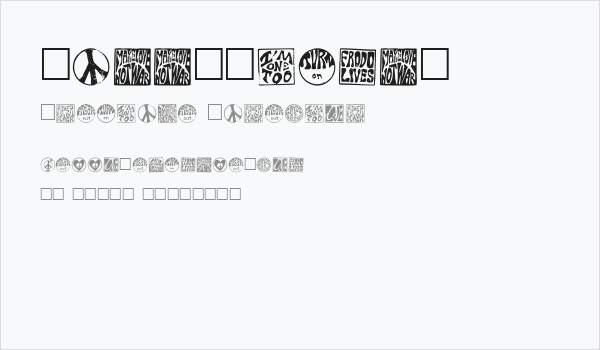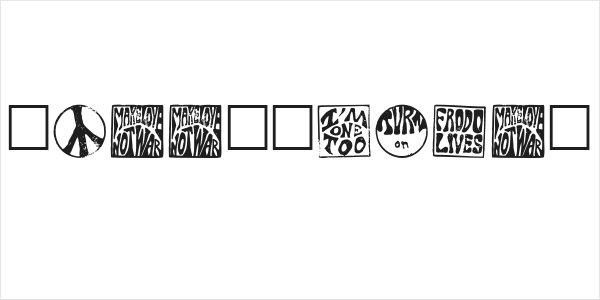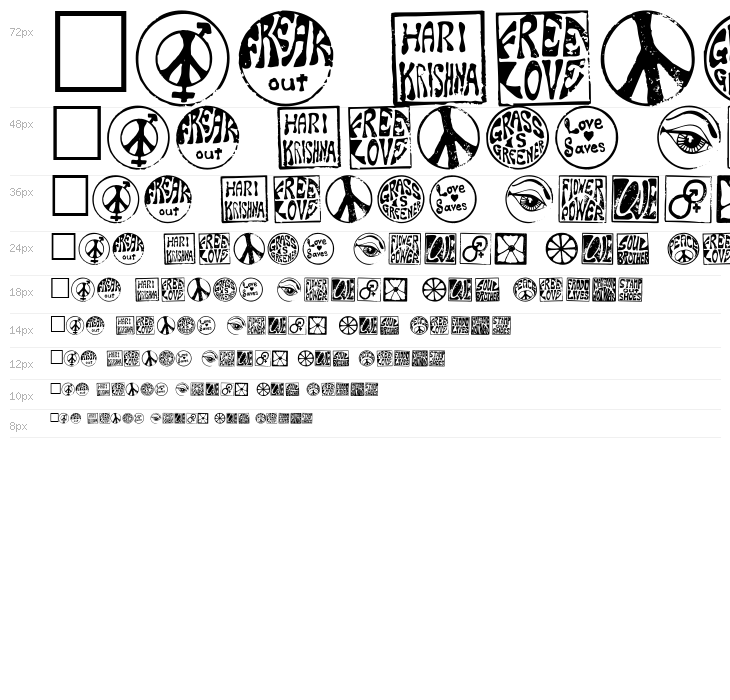
HippyStampA Font
| 整体风格 | Vintage |
| 使用场景 | Logos, Posters, Album covers |
| 推荐项目 | Ideal for retro-themed posters, album covers, event flyers, and any project seeking a vintage, counterculture aesthetic. |